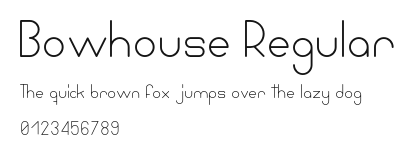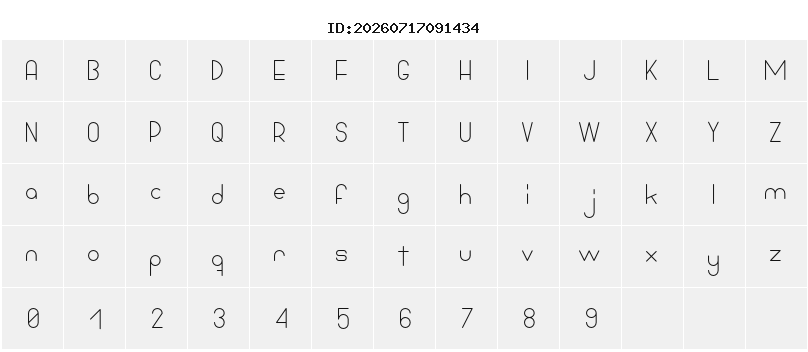
• Font Name: Bowhouse Regular
• Designer: Adrian Candela
• Description: Bowhouse Regular is a font by Adrian Candela, designed by Adrian Candela in 2013.
About Bowhouse Regular.otf
Bowhouse Regular.otf is a modern, elegant sans-serif font designed for ultimate readability and visual harmony. Perfect for branding, headlines, web design, and print materials.